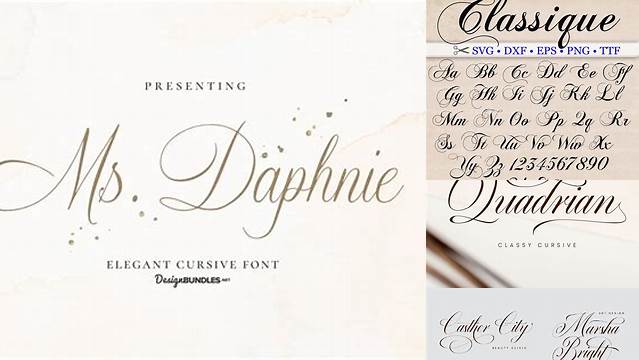
Elegant Cursive Fonts For HTML: 1001fonts Guide
Hey guys! Ever wanted to spice up your website with some elegant, flowing cursive fonts? You're in the right place! We're diving deep into the world of cursive fonts from 1001fonts and how to use them in your HTML projects. Cursive fonts can add a touch of sophistication and personality to your website, making it stand out from the crowd. But choosing the right font and implementing it correctly can be a bit tricky. Don't worry, we've got you covered. This guide will walk you through everything you need to know, from finding the perfect cursive font on 1001fonts to embedding it in your HTML code. Let's get started and transform your website's typography!
1. Exploring the World of 1001fonts Cursive Fonts
So, you're on the hunt for the perfect cursive font, huh? 1001fonts is a fantastic resource, brimming with options. When we talk about 1001fonts cursive fonts, we're really talking about a diverse range of styles, from classic calligraphy to modern script. Think about what kind of vibe you're going for. Is it a romantic feel? A professional touch? Or maybe something playful and whimsical? Browsing through 1001fonts, you'll find fonts that mimic handwriting, fonts with elegant swashes, and fonts that are bold and attention-grabbing. The key is to take your time and explore. Use the search filters to narrow down your options by style, weight, and other characteristics. Don't be afraid to try out different fonts and see how they look with your website's design. Remember, the right font can make all the difference in conveying your message and captivating your audience. Before you even get to the HTML part, spending time here is key to setting a solid foundation. Choosing wisely from the get-go will save you headaches later on. Think about how the font will look on different screen sizes and in different browsers too! This is crucial for ensuring your website looks consistent and professional across all devices.
2. Understanding Different Styles of Cursive Fonts on 1001fonts
Let's break down the different styles of cursive fonts available on 1001fonts. It’s not just about finding something swirly; it’s about finding the right swirly. You've got your classic calligraphy styles, which are elegant and formal, perfect for wedding invitations or high-end branding. Then there are the modern script fonts, which tend to be more casual and playful, great for blogs or creative projects. Think about fonts that mimic handwriting – these can add a personal touch to your website. And don't forget the bold and dramatic cursive fonts, which are fantastic for headlines and making a statement. When you're browsing, pay attention to the details. Look at the thickness of the lines, the shape of the letters, and the overall flow of the font. Consider how well the font will pair with other fonts on your website. Will it clash or complement? Also, think about readability. A beautiful font is useless if it's difficult to read. Test out the font in different sizes and contexts to make sure it's clear and legible. Remember, the goal is to enhance your website's design, not distract from it. Choosing the right cursive style is crucial for setting the right tone and creating the desired impact.
3. Finding the Perfect Cursive Font for Your HTML Project
Finding the perfect cursive font for your HTML project is like finding the missing piece of a puzzle. It's got to fit just right! Start by considering the purpose of your website. What's the overall theme and message? A playful, whimsical cursive font might be perfect for a children's website, but it would probably look out of place on a professional business site. Think about your target audience too. What kind of fonts will they find appealing and easy to read? Once you have a clear idea of your needs, head over to 1001fonts and start browsing. Use the filters to narrow down your options based on style, weight, and other criteria. Don't be afraid to experiment! Try out different fonts and see how they look with your website's design. Pay attention to how the font looks in different sizes and contexts. Is it legible in small body text? Does it stand out in headlines? It's a good idea to create a mockup of your website with different fonts to see which one works best. And don't forget to check the font's license. Make sure you're allowed to use it for your project. With a little patience and experimentation, you'll find the perfect cursive font to bring your website to life.
7. Choosing the Right Cursive Font Size for Your HTML Text
Choosing the right font size is crucial for readability and overall design. It's especially important when dealing with cursive fonts, as they can sometimes be harder to read than standard fonts. Think about the context in which the font will be used. For body text, you'll want a size that's comfortable to read for extended periods. Generally, a font size between 14px and 18px works well for body text on the web. For headings and titles, you can go larger to create emphasis, but don't overdo it. A heading that's too large can be overwhelming and detract from the overall design. Consider the font's characteristics as well. Some cursive fonts have a lot of flourish and detail, which can make them look smaller than they actually are. You might need to increase the font size slightly to compensate. It's always a good idea to test your font sizes on different devices and screen sizes to make sure they look good across the board. Use browser developer tools to experiment with different sizes and see what works best. Also, pay attention to line height and letter spacing. These can have a big impact on readability. A font that's too cramped or too spaced out can be difficult to read, no matter the size.
8. Using CSS to Style Cursive Fonts in HTML
Now for the fun part: using CSS to style those gorgeous 1001fonts cursive fonts in your HTML! CSS is your best friend when it comes to controlling the appearance of your website's text. To use a cursive font in your HTML, you'll first need to include the font file in your project. If you're using a web font service like Google Fonts, you can simply add a link to the font in your HTML's <head> section. If you're using a font file you downloaded from 1001fonts, you'll need to host the font file on your server and use the @font-face rule in your CSS to define the font. Here's a basic example:
@font-face {
font-family: 'YourCursiveFont';
src: url('your-cursive-font.woff2') format('woff2'),
url('your-cursive-font.woff') format('woff');
}
Replace 'YourCursiveFont' with the name you want to use for the font in your CSS, and replace 'your-cursive-font.woff2' and 'your-cursive-font.woff' with the paths to your font files. Once you've defined the font, you can use it in your CSS like any other font:
h1 {
font-family: 'YourCursiveFont', cursive;
}
p {
font-family: 'YourCursiveFont', cursive;
}
The font-family property specifies the font to use. The cursive value is a fallback in case your custom font doesn't load. With CSS, you can control not only the font family but also the font size, color, weight, letter spacing, line height, and much more. Experiment with different CSS properties to create the perfect look for your cursive fonts.
9. Embedding 1001fonts Cursive Fonts Using @font-face
Let's get specific about embedding 1001fonts cursive fonts using the @font-face rule in CSS. This is the method you'll use when you've downloaded a font file and want to host it on your own server. The @font-face rule allows you to define a custom font and specify its location. Here's a step-by-step breakdown:
- Upload your font files to your server. Create a folder in your project directory (e.g.,
fonts) and put your font files (WOFF, TTF, OTF) in it. - Write the
@font-facerule in your CSS. This rule goes at the top of your CSS file or in a separate CSS file that you link to your HTML.
@font-face {
font-family: 'YourCursiveFont';
src: url('fonts/your-cursive-font.woff2') format('woff2'),
url('fonts/your-cursive-font.woff') format('woff'),
url('fonts/your-cursive-font.ttf') format('truetype');
font-weight: normal;
font-style: normal;
}
font-family: This is the name you'll use to refer to the font in your CSS. Choose a descriptive name.src: This specifies the location of your font files. Include multiple formats (WOFF2, WOFF, TTF) for best browser compatibility.format: This tells the browser the format of the font file.font-weightandfont-style: These specify the font's weight (e.g., normal, bold) and style (e.g., normal, italic). If you have different font files for different weights and styles, you'll need to define separate@font-facerules for each.
- Use the font in your CSS. Once you've defined the font, you can use it in your CSS like any other font.
h1 {
font-family: 'YourCursiveFont', cursive;
}
By using the @font-face rule, you have complete control over your fonts and can ensure that your website displays them correctly.
10. Using 1001fonts Cursive Fonts with Google Fonts
While 1001fonts is a treasure trove, let's talk about using cursive fonts in conjunction with Google Fonts. Google Fonts is a free, web-based service that hosts a vast library of fonts, including many beautiful cursive options. The big advantage of using Google Fonts is that they're hosted on Google's servers, which means they're delivered quickly and efficiently to your website visitors. This can improve your website's loading speed and performance. To use a cursive font from Google Fonts, you'll first need to find the font you want on the Google Fonts website. Once you've found it, click the "Select this style" button. A panel will slide out from the right, showing you the code you need to embed the font in your website. There are two ways to embed Google Fonts: using a <link> tag in your HTML or using an @import rule in your CSS. The <link> tag method is generally recommended, as it's more performant. Simply copy the <link> tag from the Google Fonts panel and paste it into the <head> section of your HTML file. Then, copy the CSS rule from the Google Fonts panel and paste it into your CSS file. For example:
<link rel="preconnect" href="https://fonts.googleapis.com">
<link rel="preconnect" href="https://fonts.gstatic.com" crossorigin>
<link href="https://fonts.googleapis.com/css2?family=Your+Font+Name&display=swap" rel="stylesheet">
body {
font-family: 'Your Font Name', cursive;
}
Replace 'Your Font Name' with the actual name of the font. Using Google Fonts is a convenient and efficient way to add beautiful cursive fonts to your website without having to host the font files yourself. You can also combine Google Fonts with fonts you've downloaded from 1001fonts for even more design flexibility.
11. Optimizing Cursive Fonts for Web Performance
Okay, you've got your gorgeous cursive fonts all set up, but let's talk performance. No one wants a slow website, right? Optimizing your fonts is key to ensuring a smooth user experience. Here are a few tips:
- Use WOFF2 format. WOFF2 is the most modern and efficient font format for the web. It's smaller than TTF or OTF, which means it loads faster.
- Subset your fonts. If you're only using a small subset of characters from a font, you can create a subsetted font file that only includes those characters. This can significantly reduce the font file size.
- Use font-display: swap. This CSS property tells the browser to display fallback text immediately while the font is loading. This prevents the dreaded "flash of invisible text" and improves perceived performance.
@font-face {
font-family: 'YourCursiveFont';
src: url('fonts/your-cursive-font.woff2') format('woff2');
font-weight: normal;
font-style: normal;
font-display: swap;
}
Consider using a CDN. If you're using a lot of custom fonts, consider using a content delivery network (CDN) to host your font files. CDNs distribute your files across multiple servers, which can improve loading times for users around the world.
Limit the number of fonts. Using too many different fonts can slow down your website. Stick to a maximum of 2-3 fonts per project.
Optimizing your fonts is an essential part of web development. By following these tips, you can ensure that your website looks great and loads quickly.
12. Troubleshooting Cursive Font Display Issues in HTML
Sometimes, things don't go quite as planned. You've added your cursive font to your HTML, but it's not displaying correctly. Don't panic! Here are some common issues and how to fix them:
- Font file not found. Double-check the path to your font file in your
@font-facerule. Make sure the file is in the correct location and that the path is spelled correctly. - Font format not supported. Some older browsers don't support WOFF2. Make sure you're including fallback formats like WOFF and TTF.
- CSS specificity issues. If another CSS rule is overriding your font-family declaration, you might not see your cursive font. Try increasing the specificity of your rule or using the
!importantdeclaration (but use this sparingly!). - Browser caching. Sometimes, the browser might be caching an old version of your CSS or font file. Try clearing your browser cache or using a cache-busting technique (like adding a query string to your CSS file URL).
- Font licensing issues. Make sure you have the correct license to use the font on your website.
- Font not loading due to CORS. If your font file is hosted on a different domain, you might need to configure Cross-Origin Resource Sharing (CORS) on your server to allow the font to be loaded.
Troubleshooting font display issues can be frustrating, but with a systematic approach, you can usually find the problem and fix it. Use your browser's developer tools to inspect the CSS and network requests to help diagnose the issue.
13. Pairing Cursive Fonts with Other Font Styles
Cursive fonts are beautiful, but they often work best when paired with other font styles. Think of it like a well-balanced meal – you need different elements to create a satisfying experience. Using a cursive font for everything can be overwhelming and difficult to read. Instead, try using a cursive font for headings or accents and a simpler, more legible font for body text. When choosing fonts to pair, look for contrast. A clean, sans-serif font like Arial or Helvetica can provide a nice contrast to a flowing cursive font. A serif font like Times New Roman or Georgia can also work well, but be careful not to choose a serif font that's too ornate, as it might clash with the cursive font. The key is to create a visual hierarchy and make your text easy to read. Experiment with different font pairings to see what works best for your design. There are also plenty of online resources that can help you find complementary font pairings.
14. Best Practices for Using Cursive Fonts in Web Design
Let's talk best practices for using cursive fonts in web design. Cursive fonts can add a touch of elegance and personality, but they can also be tricky to use effectively. Here are some guidelines to keep in mind:
- Use cursive fonts sparingly. As we mentioned before, cursive fonts are best used for headings, logos, or accents, not for large blocks of text.
- Ensure readability. Choose a cursive font that's easy to read, even at smaller sizes. Avoid fonts with overly intricate details or thin strokes.
- Consider contrast. Pair your cursive font with a simpler, more legible font for body text.
- Think about context. The font you choose should match the overall tone and style of your website.
- Test on different devices. Make sure your cursive font looks good on different screen sizes and resolutions.
- Optimize for performance. Use WOFF2 format, subset your fonts, and use
font-display: swapto improve loading times. - Check your license. Make sure you have the correct license to use the font on your website.
By following these best practices, you can use cursive fonts effectively to enhance your website's design without sacrificing readability or performance.
15. Accessibility Considerations for Cursive Fonts
Accessibility is crucial in web design, and that includes your choice of fonts. Cursive fonts, while beautiful, can sometimes pose challenges for users with visual impairments or reading disabilities. It's important to consider accessibility when using cursive fonts to ensure that your website is usable by everyone. One of the biggest concerns is readability. Cursive fonts can be harder to read than standard fonts, especially for people with dyslexia or low vision. To improve readability, choose a cursive font that's relatively simple and clear. Avoid fonts with overly elaborate details or thin strokes. Make sure your font size is large enough and that there's sufficient contrast between the text and the background. Provide alternative text styles. Consider offering users an option to switch to a more legible font if they find the cursive font difficult to read. You can do this with CSS and JavaScript. Test your website with accessibility tools and with users who have disabilities to get feedback on your font choices. By considering accessibility, you can ensure that your website is inclusive and usable by everyone.
16. Examples of Websites Using Cursive Fonts Effectively
Let's take a look at some websites that use cursive fonts effectively. Seeing real-world examples can give you inspiration and help you understand how to use cursive fonts in your own designs. Many wedding websites use cursive fonts to create a romantic and elegant feel. The cursive font is often used for the couple's names, the date, and other key information. Food blogs and websites sometimes use cursive fonts to add a touch of personality and warmth. The cursive font might be used for the blog's logo, headings, or call-to-action buttons. Websites for creative businesses, like photographers or designers, often use cursive fonts to showcase their artistic style. The cursive font might be used throughout the website to create a cohesive and visually appealing design. When looking at these examples, pay attention to how the cursive font is used in combination with other fonts and design elements. Notice how the font size, color, and spacing are used to enhance readability and create a visual hierarchy. Analyzing successful examples can help you develop your own sense of how to use cursive fonts effectively.
17. Common Mistakes to Avoid When Using Cursive Fonts
Using cursive fonts can be tricky, and it's easy to make mistakes that can detract from your website's design and usability. Here are some common pitfalls to avoid:
- Using cursive fonts for large blocks of text. Cursive fonts are best used sparingly, for headings or accents. Using them for body text makes your content difficult to read.
- Choosing an overly ornate cursive font. Some cursive fonts are so elaborate that they're almost illegible. Stick to fonts that are relatively clear and easy to read.
- Not considering contrast. Make sure there's sufficient contrast between your cursive font and the background color. Light cursive fonts on light backgrounds or dark fonts on dark backgrounds are hard to read.
- Ignoring font size. A cursive font that's too small will be difficult to read, while one that's too large can be overwhelming. Choose a font size that's appropriate for the context.
- Forgetting about responsiveness. Make sure your cursive font looks good on different screen sizes and devices. Test your website on mobile devices and adjust the font size and layout as needed.
- Overusing cursive fonts. Using too many different cursive fonts on one page can create a cluttered and confusing look. Stick to one or two cursive fonts at most.
By avoiding these common mistakes, you can use cursive fonts effectively to enhance your website's design without sacrificing usability.
18. The Future of Cursive Fonts in Web Design
What does the future hold for cursive fonts in web design? As the web continues to evolve, so will typography. Cursive fonts are likely to remain a popular choice for adding personality and flair to websites, but their usage may change. We may see more sophisticated techniques for using cursive fonts, such as variable fonts that allow for greater control over font weight and style. We may also see more creative font pairings and more attention to accessibility. The trend towards minimalism in web design may influence the use of cursive fonts, with designers opting for cleaner, more legible cursive options. Technology will also play a role. AI-powered design tools may help designers choose the perfect cursive font for their project and optimize it for performance and accessibility. Overall, the future of cursive fonts in web design looks bright. They will continue to be a valuable tool for creating visually appealing and engaging websites.
19. Mobile Responsiveness and Cursive Fonts
Mobile responsiveness is absolutely critical in today's web design landscape. A website that looks great on a desktop but is a mess on a phone is a recipe for disaster. So, how do cursive fonts fit into the mobile-first world? Cursive fonts can be particularly tricky on mobile devices because the smaller screen size can make intricate fonts harder to read. The key is to ensure your cursive fonts are legible and don't compromise the user experience. Start by choosing a cursive font that's relatively clean and clear. Avoid fonts with overly thin strokes or elaborate details, as these can become blurry or pixelated on smaller screens. Use media queries in your CSS to adjust the font size and spacing for different screen sizes. You might need to make your cursive font larger on mobile devices to improve readability. Test your website on a variety of mobile devices to ensure that your cursive fonts look good and are easy to read. Pay attention to line height and letter spacing, as these can have a significant impact on readability on mobile devices. You might also consider using a different font for body text on mobile devices if your cursive font is too difficult to read.
20. Creating a Visual Hierarchy with Cursive Fonts
A visual hierarchy is essential for guiding your users through your website's content. It helps them understand the relative importance of different elements and find what they're looking for quickly. Cursive fonts can be a powerful tool for creating a visual hierarchy, but they need to be used strategically. Typically, cursive fonts are best used for headings or accents, rather than for large blocks of text. This is because they tend to be more visually striking and can draw the user's eye. You can use different font sizes, weights, and colors to create a visual hierarchy. For example, you might use a large, bold cursive font for your main heading, a smaller cursive font for subheadings, and a simple sans-serif font for body text. Use whitespace effectively to create visual separation between elements and improve readability. Line height, letter spacing, and margins can all play a role in creating a clear visual hierarchy. Consider using different font styles to differentiate between different types of content. For example, you might use a cursive font for quotes or testimonials to make them stand out. Remember, the goal is to guide your users through your content and make it easy for them to find what they need.
21. Licensing Considerations for 1001fonts Cursive Fonts
Licensing is a critical aspect of using fonts, and it's something you need to understand before you start incorporating 1001fonts cursive fonts into your projects. Fonts are intellectual property, and their use is governed by licenses. Ignoring these licenses can lead to legal issues. 1001fonts offers a wide range of fonts with different licenses. Some fonts are free for personal use, while others are free for commercial use. Some fonts require a license purchase for commercial use. It's essential to read the license agreement for each font you download and make sure you understand the terms. The license agreement will specify how you're allowed to use the font, including whether you can use it for commercial projects, whether you can embed it in websites or applications, and whether you can modify it. Pay attention to any restrictions on the number of users or the number of projects the font can be used in. If you're unsure about the terms of a license, it's always best to contact the font designer or the font foundry for clarification. Using a font without the proper license can result in copyright infringement, which can have serious consequences. Always err on the side of caution and make sure you have the necessary permissions before using a font in your projects.
22. Creating Logos with Cursive Fonts from 1001fonts
Cursive fonts can be a fantastic choice for creating logos, especially if you're aiming for a look that's elegant, personal, or handcrafted. The flowing lines and unique letterforms of cursive fonts can give your logo a distinctive and memorable quality. When designing a logo with a cursive font, it's important to choose a font that's legible and reflects your brand's personality. Consider the overall tone and message you want to convey. A formal, script-like cursive font might be perfect for a luxury brand, while a more playful, handwritten cursive font might be a better fit for a creative business. Keep the logo simple and clean. Avoid using too many elements or details, as this can make the logo look cluttered and difficult to read. Pay attention to the kerning (the spacing between letters) to ensure that the logo looks balanced and harmonious. Test your logo in different sizes and contexts to make sure it looks good on everything from business cards to websites. Consider how the logo will look in black and white, as well as in color. You might need to adjust the font or the layout to ensure it works well in all situations. Cursive fonts can add a touch of class and personality to your logo, but it's important to use them thoughtfully and strategically.
23. Combining Cursive Fonts with Images in HTML
Combining cursive fonts with images can create visually stunning and engaging web designs. The interplay between text and visuals can add depth, personality, and emotional impact to your website. When working with cursive fonts and images, it's important to consider how they complement each other. The font and the image should work together to convey your message and create a cohesive aesthetic. If you're using a cursive font for headings, consider using images that are similarly elegant or handcrafted. A photograph with a soft focus or a hand-drawn illustration might be a good choice. If you're using a cursive font for body text or captions, make sure the text is legible against the image. Use a background overlay or a text shadow to improve contrast if necessary. Experiment with different layouts and compositions to find the best way to integrate the cursive font and the images. Consider using text overlays, image masks, or creative typography treatments to create a unique and memorable design. Pay attention to the overall balance and harmony of the design. The goal is to create a visual experience that's both beautiful and effective.
24. Using Cursive Fonts for Headlines and Titles
Headlines and titles are prime real estate on your website. They're the first thing visitors see, and they play a crucial role in capturing attention and conveying your message. Cursive fonts can be a fantastic choice for headlines and titles, adding a touch of elegance, personality, or drama. When using cursive fonts for headlines, choose a font that's both visually striking and easy to read. A headline that's too ornate or difficult to decipher will frustrate your visitors. Consider the length of your headlines. Cursive fonts tend to work best for shorter headlines, as long sentences in cursive can be challenging to read. Use different font sizes and weights to create a visual hierarchy. Your main headline should be the largest and most prominent element on the page. Pair your cursive headline with a simpler, more legible font for body text. This will create a nice contrast and ensure that your content is easy to read. Experiment with different colors and spacing to make your headlines stand out. A well-designed headline can make a big impact on your website's overall design and effectiveness.
25. Cursive Fonts and Branding: Creating a Unique Identity
Branding is all about creating a unique identity that sets you apart from the competition. Your choice of fonts plays a significant role in your branding efforts. Cursive fonts can be a powerful tool for creating a brand identity that's elegant, personal, or handcrafted. When using cursive fonts for branding, consider your target audience and the message you want to convey. A formal, script-like cursive font might be perfect for a luxury brand, while a more playful, handwritten cursive font might be a better fit for a creative business. Consistency is key in branding. Use your chosen cursive font consistently across all your marketing materials, from your logo and website to your business cards and social media profiles. Make sure your cursive font is legible and works well in different sizes and contexts. Test it on different devices and in different media to ensure that it maintains its visual appeal. Consider how your cursive font pairs with other elements of your brand identity, such as your colors, images, and overall design style. The goal is to create a cohesive and memorable brand experience that resonates with your target audience. A well-chosen cursive font can help you create a brand identity that's both distinctive and effective.
26. Cursive Fonts and User Experience (UX)
User experience (UX) is paramount in web design. A website that's beautiful but difficult to use will frustrate visitors and drive them away. Cursive fonts, while visually appealing, can impact UX if not used thoughtfully. The primary UX consideration with cursive fonts is readability. Cursive fonts, by their nature, can be more challenging to read than standard fonts, especially for users with visual impairments or reading disabilities. Choose cursive fonts that are relatively clear and easy to decipher. Avoid fonts with overly elaborate details or thin strokes. Use cursive fonts sparingly, typically for headings or accents rather than for large blocks of text. Ensure sufficient contrast between the cursive font and the background color. Light cursive fonts on light backgrounds or dark fonts on dark backgrounds are difficult to read. Consider the user's device and screen size. Cursive fonts can be harder to read on smaller screens, so you might need to adjust the font size or use a different font for mobile devices. Test your website with users to get feedback on the readability and overall UX of your cursive fonts. A well-designed website with a focus on UX will use cursive fonts strategically to enhance the user experience, not detract from it.
27. Legal Aspects of Using 1001fonts Cursive Fonts in Commercial Projects
When using 1001fonts cursive fonts in commercial projects, understanding the legal aspects is non-negotiable. Ignoring font licenses can lead to legal repercussions, so it's crucial to be informed and compliant. Most fonts are protected by copyright, and their use is governed by license agreements. These licenses specify how the font can be used, including whether it's permissible for commercial purposes. Before using a cursive font in a commercial project (e.g., a website, logo, or marketing material), carefully review the font's license. 1001fonts offers a variety of fonts with different license types. Some fonts are free for personal use but require a commercial license for business-related projects. Pay close attention to restrictions on embedding fonts in websites or applications. Some licenses may require specific measures to protect the font from unauthorized use. If you're unsure about the terms of a font license, contact the font designer or foundry for clarification. Retain records of your font licenses. This documentation can be invaluable in the event of a copyright dispute. Always err on the side of caution and ensure you have the necessary permissions before using a font in a commercial context. Compliance with font licenses protects both you and the font designer.
28. Future Trends in Typography and Cursive Fonts
The world of typography is constantly evolving, and staying abreast of future trends can help you create cutting-edge designs. Cursive fonts, with their unique aesthetic, are part of this evolution. Several trends are likely to shape the future of typography and the use of cursive fonts:
- Variable fonts: Variable fonts allow for a single font file to contain multiple variations of a typeface, offering greater flexibility in design and improved performance. Cursive variable fonts could allow for dynamic adjustments to weight, style, and other characteristics.
- AI-powered font design: Artificial intelligence is increasingly being used to create and customize fonts. AI could assist in generating new cursive fonts or adapting existing ones to specific design needs.
- Emphasis on accessibility: Accessibility will continue to be a key focus in typography. Future cursive fonts will likely be designed with greater emphasis on legibility and readability, ensuring inclusivity.
- Blending of styles: Expect to see more designs that blend different font styles, including cursive, serif, and sans-serif. This blending can create visually interesting and dynamic compositions.
- Personalization: Personalized typography, where fonts are tailored to individual users or brands, may become more common. Cursive fonts could play a role in creating unique and customized brand identities.
Staying informed about these trends will empower you to use cursive fonts effectively and innovatively in your designs.
29. Tools and Resources for Working with Cursive Fonts
Working with cursive fonts effectively requires the right tools and resources. Fortunately, there's a wealth of options available to help you find, manage, and implement cursive fonts in your projects. Here's a rundown of some key resources:
- Font websites: 1001fonts is a great starting point, but explore other font repositories like Google Fonts, Adobe Fonts, MyFonts, and Font Squirrel. Each offers a unique selection of cursive fonts.
- Font management software: Tools like FontBase and RightFont can help you organize and manage your font library, making it easier to find the perfect cursive font for your project.
- Online font converters: If you need to convert font formats (e.g., TTF to WOFF), online converters like CloudConvert and Transfonter can be invaluable.
- CSS font stacks: Use CSS font stacks to specify fallback fonts in case your chosen cursive font doesn't load. This ensures a consistent user experience.
- Typography resources: Websites like Typewolf and Fonts in Use showcase examples of effective typography and can provide inspiration for using cursive fonts in your designs.
- Accessibility checkers: Use accessibility testing tools like WAVE and Axe to ensure your cursive fonts are legible and don't pose accessibility issues.
Leveraging these tools and resources will streamline your workflow and help you create stunning designs with cursive fonts.
30. Showcasing Your Cursive Font Skills in Your Portfolio
If you're a designer, showcasing your skills with cursive fonts in your portfolio is a smart move. A well-curated portfolio demonstrates your expertise and attracts potential clients or employers. When presenting your cursive font work, highlight projects where you've used cursive fonts effectively to enhance the design and messaging. Include examples of logos, websites, marketing materials, or any other projects where cursive fonts played a key role. Provide context for your font choices. Explain why you selected a particular cursive font for a project and how it aligns with the brand's identity or the design's objectives. Showcase your versatility. Include examples of different cursive font styles and how you've used them in various contexts. Use high-quality images or mockups to present your work in the best possible light. Pay attention to the overall presentation of your portfolio. Make sure it's well-organized, easy to navigate, and visually appealing. Seek feedback on your portfolio from other designers or potential clients. This feedback can help you refine your presentation and showcase your skills more effectively. By showcasing your cursive font skills in your portfolio, you'll demonstrate your expertise and attract opportunities in the design world.